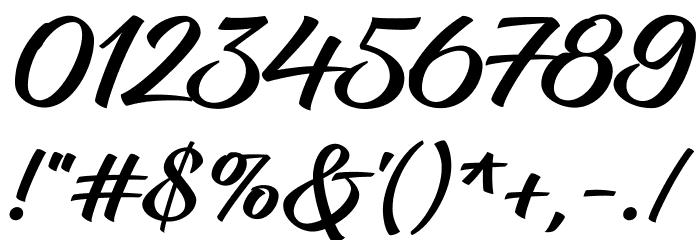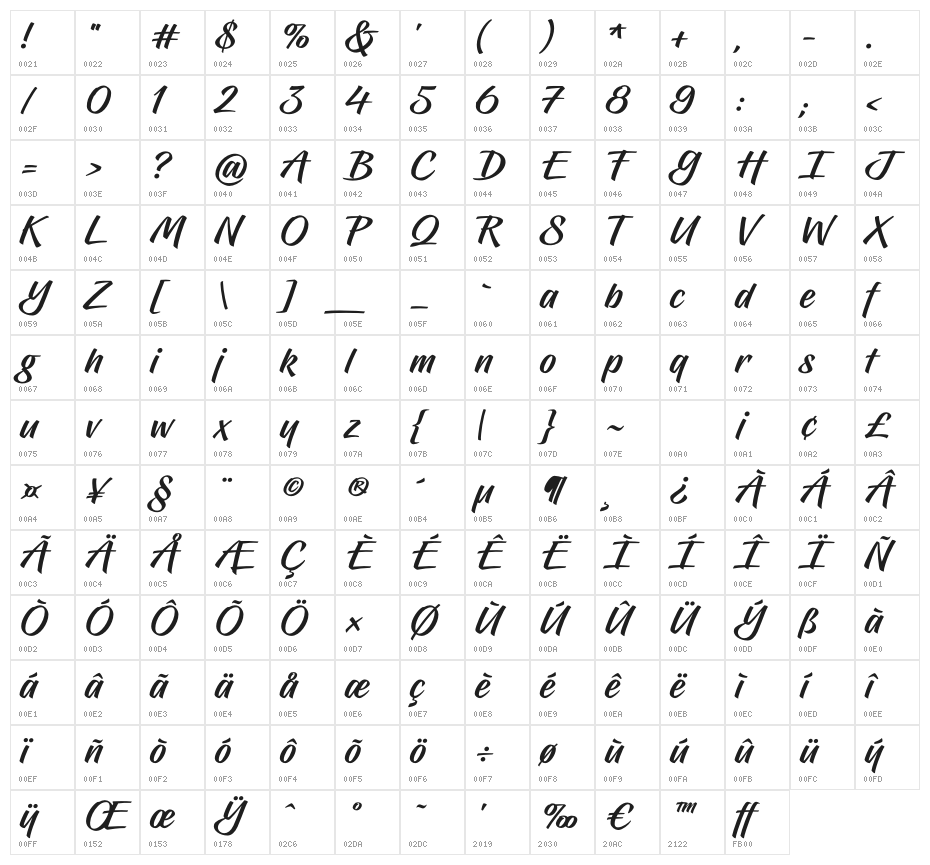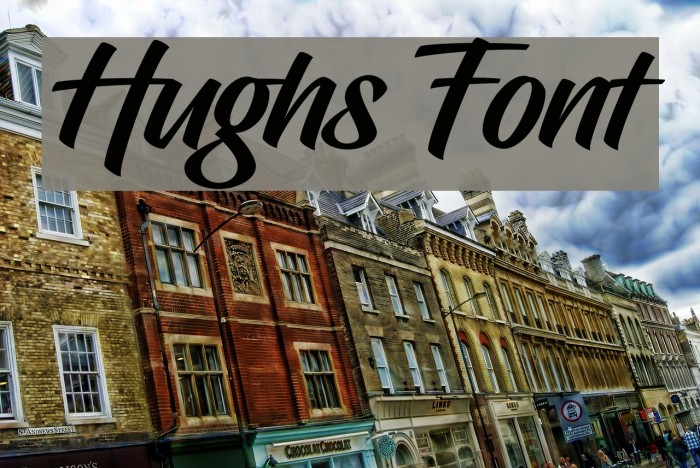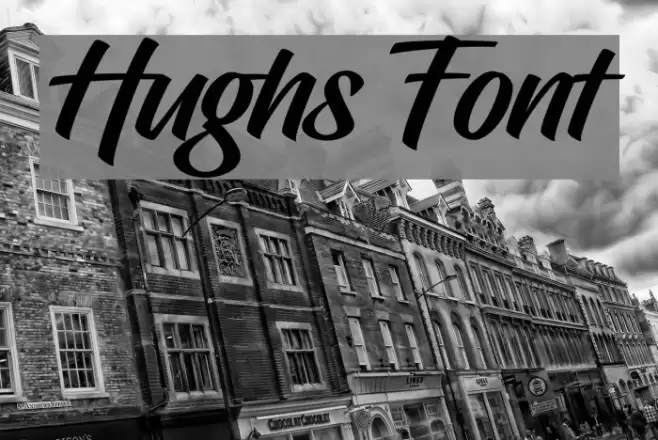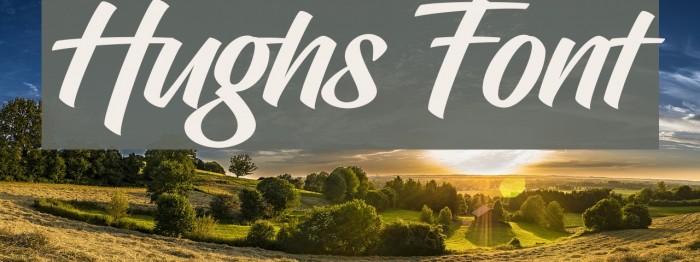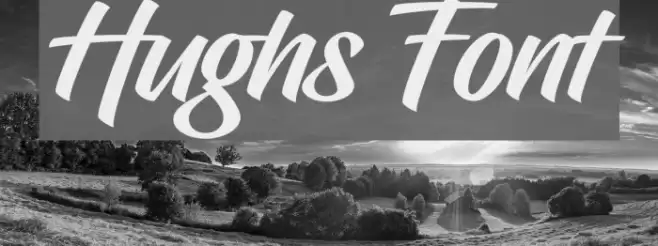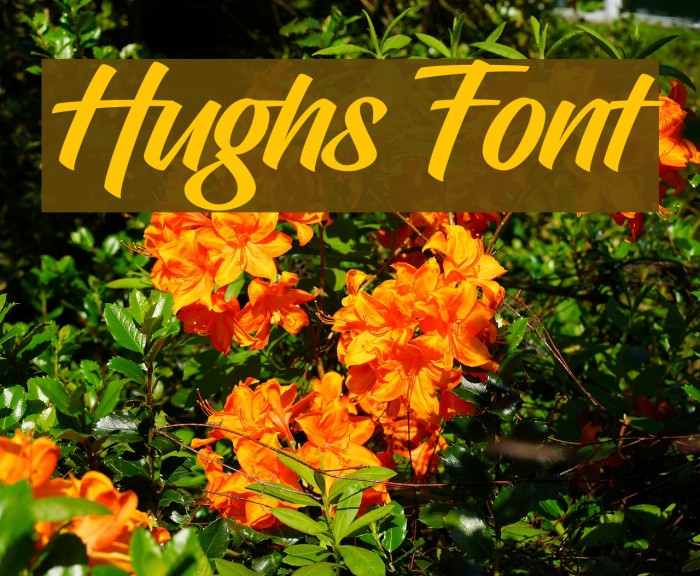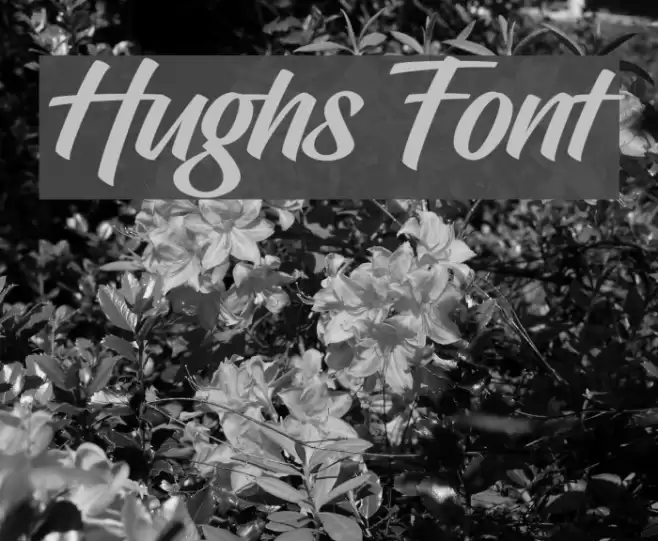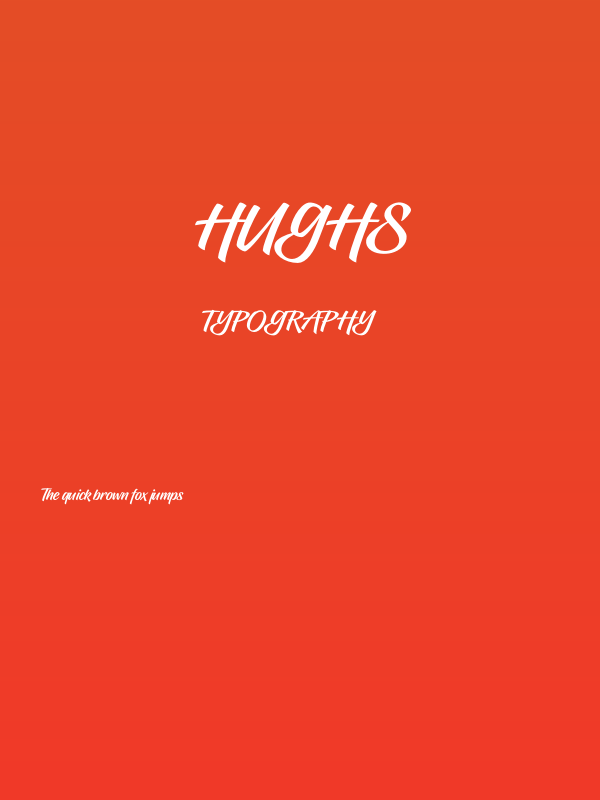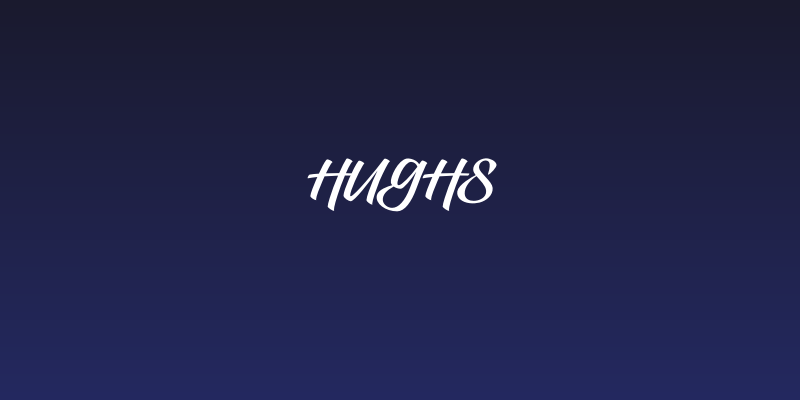
Hughs Font
Hughs Description
This font features a dynamic and flowing script style with a modern twist. The letters are slightly slanted, giving a sense of movement and elegance. The uppercase characters are bold and expressive, while the lowercase letters maintain a consistent flow with smooth curves and sharp edges. The numerals are well-integrated, matching the overall style with a touch of flair. Special characters are designed to complement the script, enhancing its versatility. This font is ideal for projects that require a personal touch, such as invitations, branding, and creative designs.